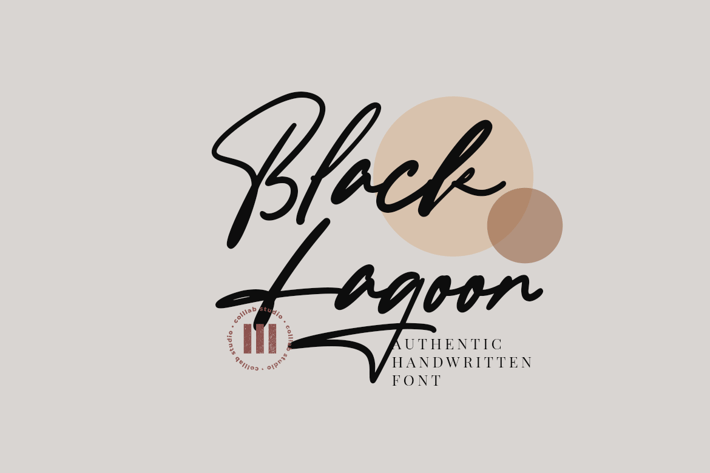
Black Lagoon - An Authentic Handwritten Font
Black Lagoon is an authentic and inky handwritten font that is suitable for design projects; signature theme, logo, branding, poster, quotes, display, beautiful stationary art, eye-catching social media posts, and cute greeting cards, and any other designs.
Some Ligatures
Some Alternates and underline swashes
Full uppercase and lowercase glyphs
Numbers, punctuations, and symbols